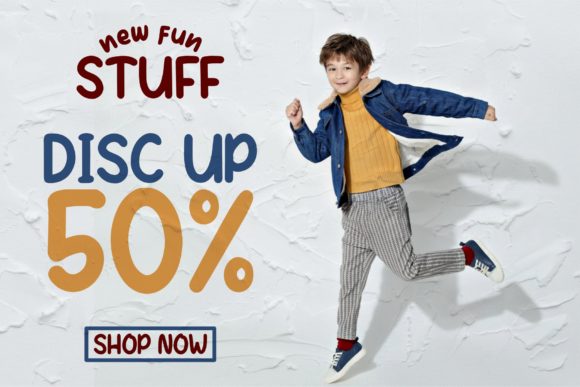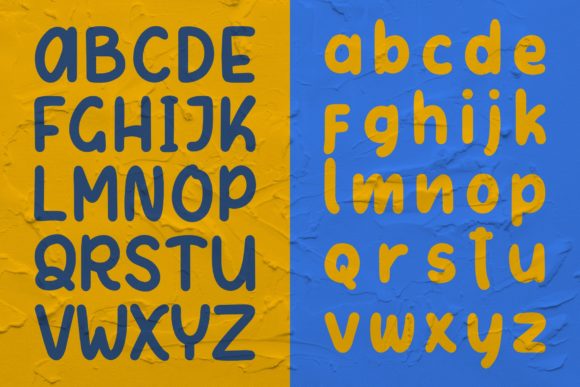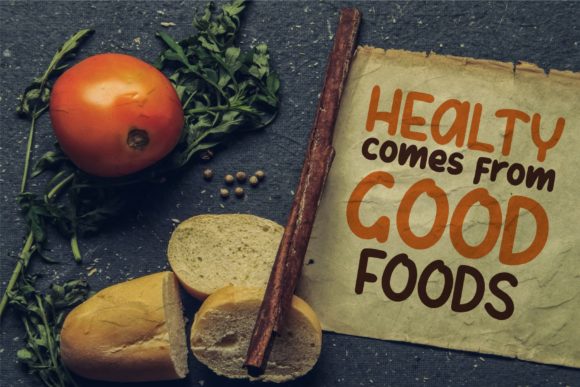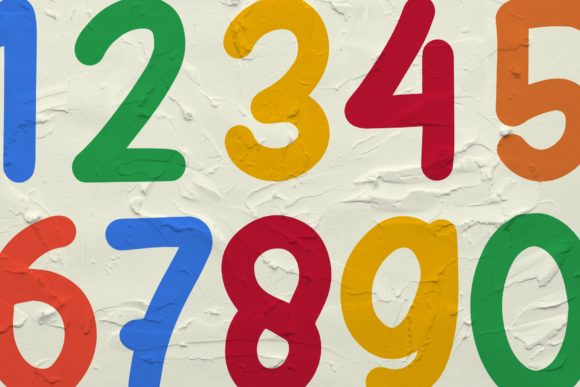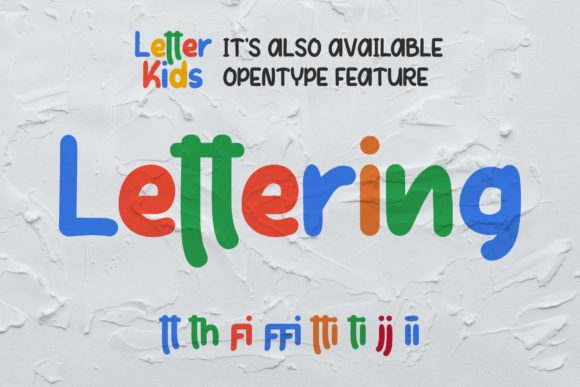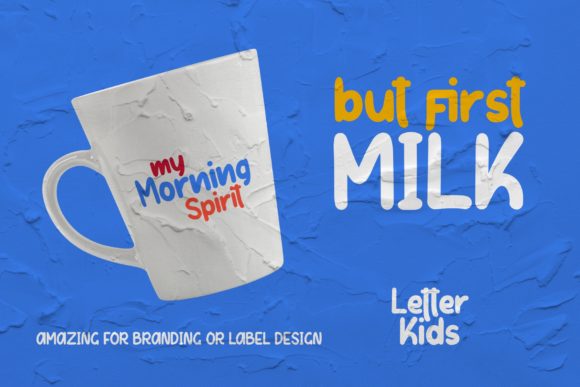
Introduction to Letter Kids Font
It’s smooth, it’s funny, it’s fun, and it’s very nice: it’s Letter Kids; a funny typeface with many possible combinations.
It’s the perfect font for all your fun designs The main font file is equipped with ordinary characters, plus it comes with super fun ligature.
Key Features of Letter Kids Font